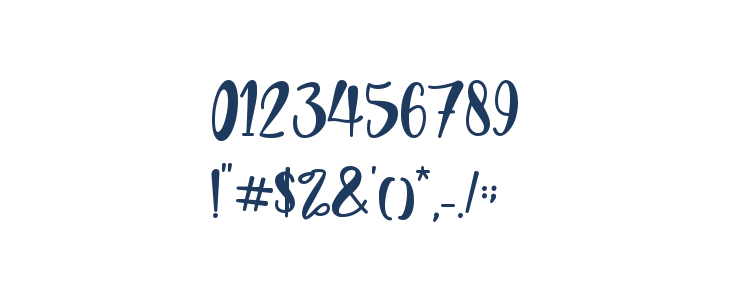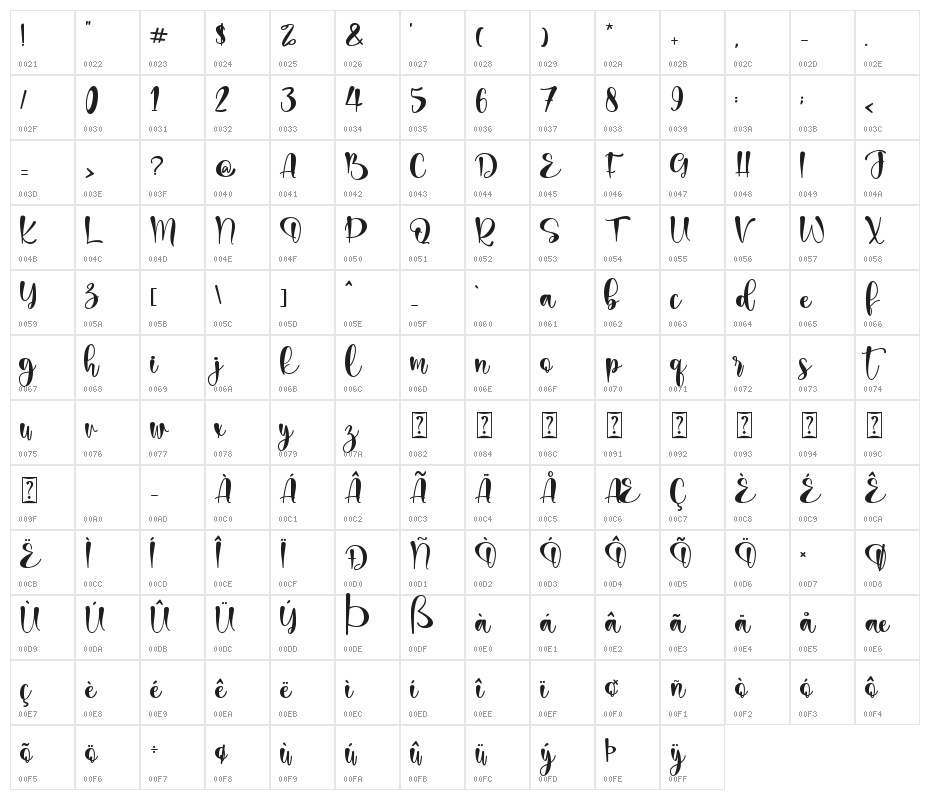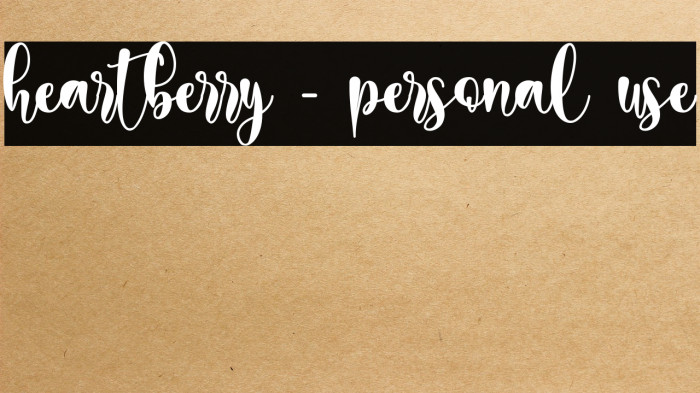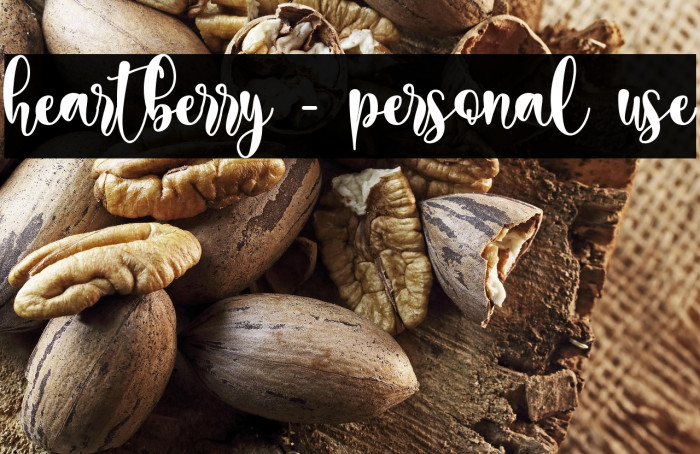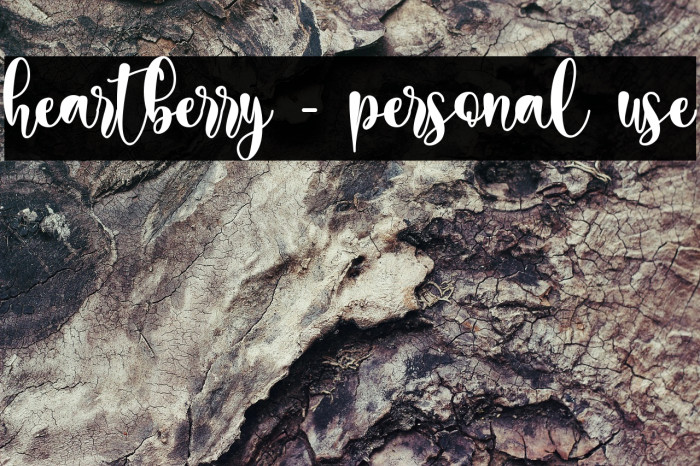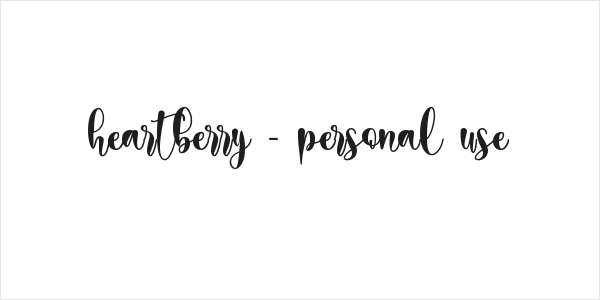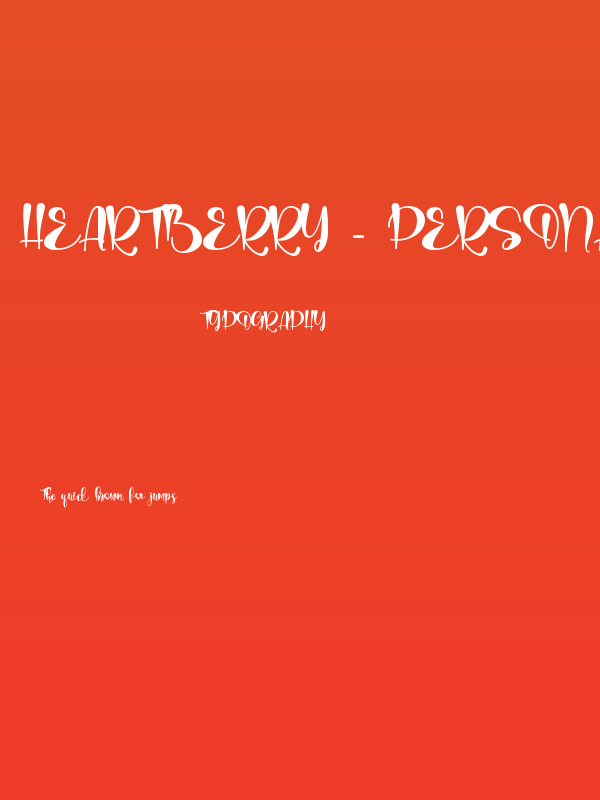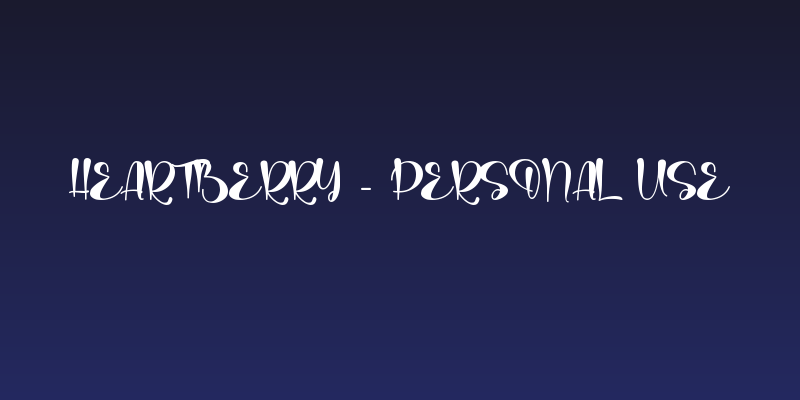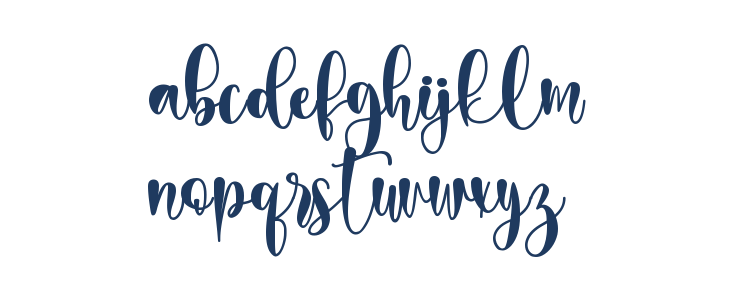
heartberry - personal use Font
heartberry - personal use Description
This font features a playful and whimsical script style with a hand-drawn appearance. The letters are characterized by their flowing, cursive forms and varying stroke widths, giving it a lively and dynamic feel. The uppercase letters are bold and expressive, while the lowercase letters maintain a consistent, fluid motion. The numbers and special characters are designed to match the overall aesthetic, ensuring a cohesive look. This font is ideal for projects that require a personal and artistic touch, such as invitations, greeting cards, and creative branding.
Use CaseLogos, Headlines, Artistic projects
Proposed ProjectsInvitations, greeting cards, creative branding, personal projects.